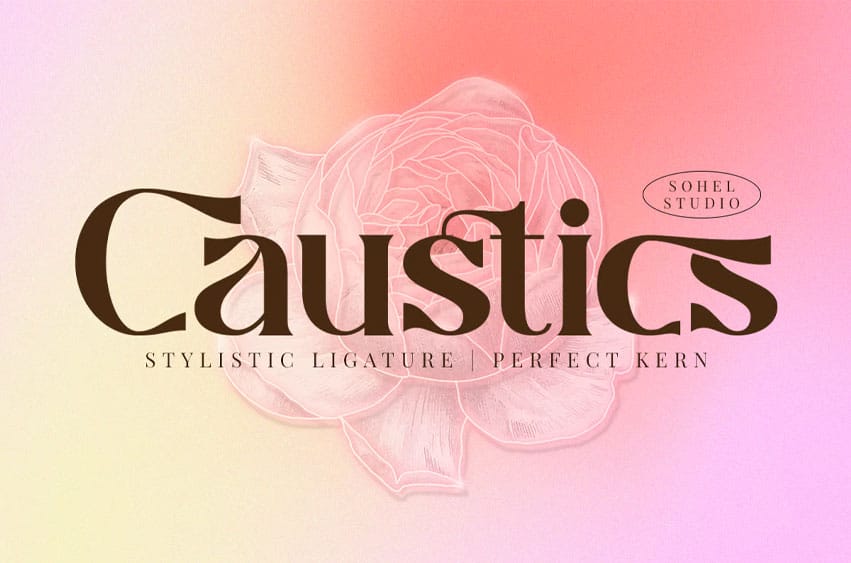
Caustics Font is a serif modern and classic typeface that has its own unique style & modern look. There are 4 different styles that you can apply to your design projects. This typeface is perfect for an elegant & luxury logo, book or movie title design, fashion brand, magazine, clothes, lettering, quotes, social media posts, and so much more.